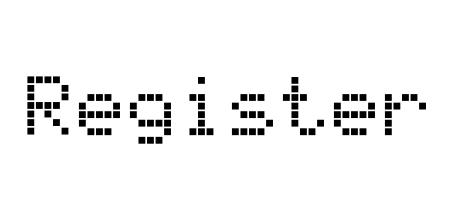
Register
By Laxxes Fonts
Register: A retro-futuristic digital font, Register evokes the aesthetic of early digital displays. Its blocky, pixelated characters give it a nostalgic charm, hinting at arcade games and 8-bit computing. The clean lines and consistent spacing create a sense of precision, yet the pixelation adds a playful, almost handmade quality. It's a font that whispers of vintage technology with a modern edge.